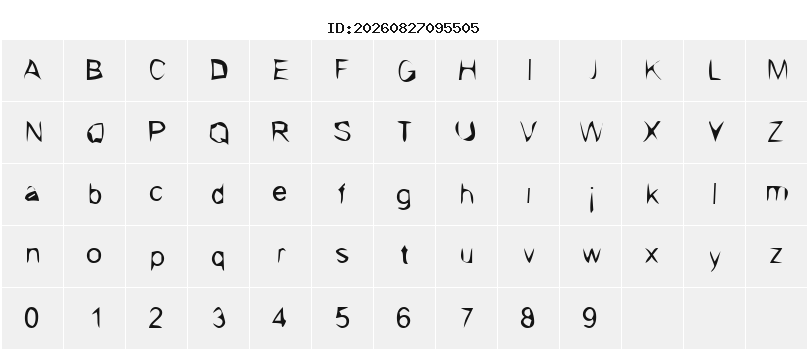
333-CAI978 Preview
• Font Name: 333-CAI978
• Font ID: 333-CAI978:Version 1.00
• Full Font Name: 333-CAI978
• Version: Version 1.00 February 28, 1997, initial release
• PostScript Name: 333-CAI978
• Character Count: 102
About 333-CAI978.ttf
333-CAI978.ttf is a modern, elegant sans-serif font designed for ultimate readability and visual harmony. Perfect for branding, headlines, web design, and print materials.